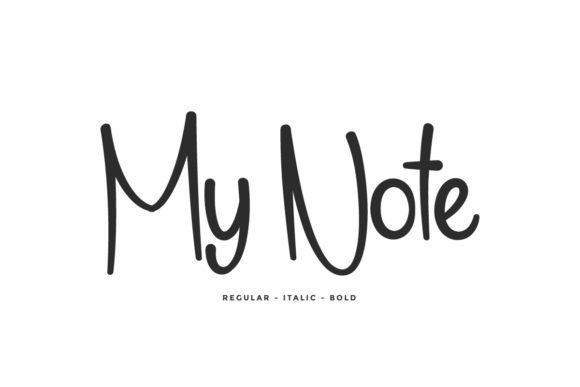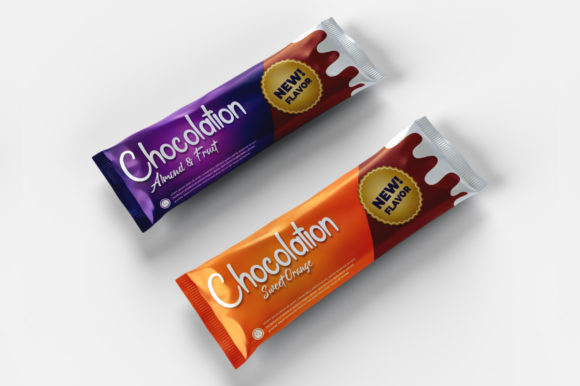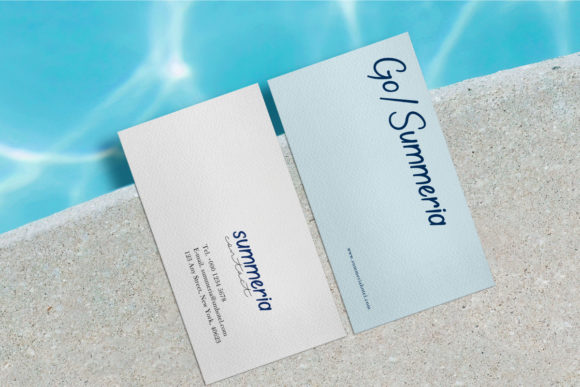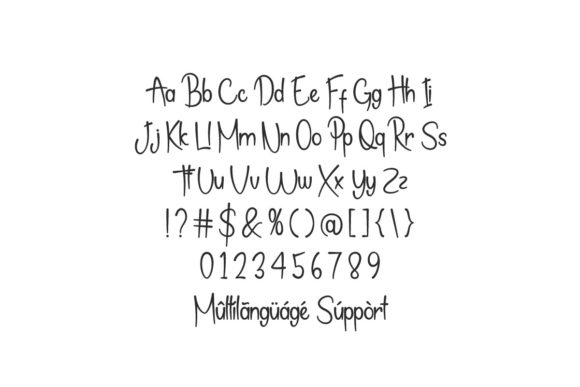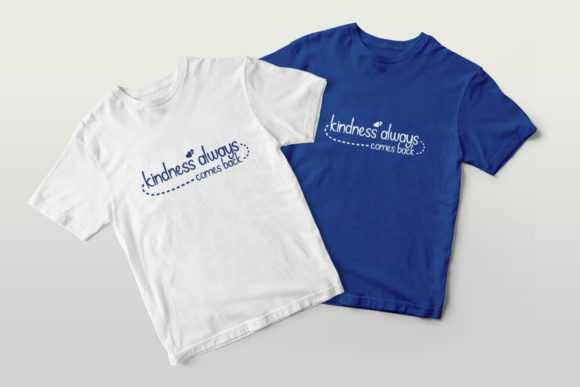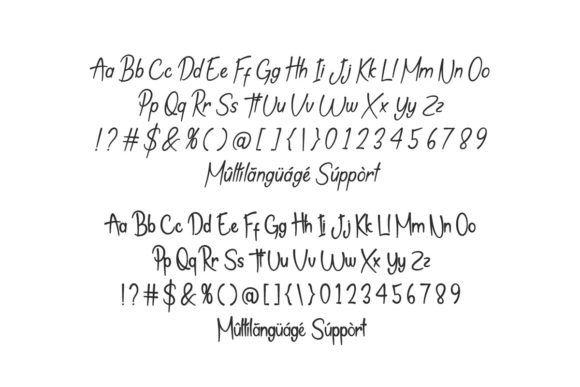
My Note Font
About My Note Font
My Note is a chic, trendy script font that emanates confidence and versatility. Its stylish alternates and ligatures make this font the perfect match for any project.